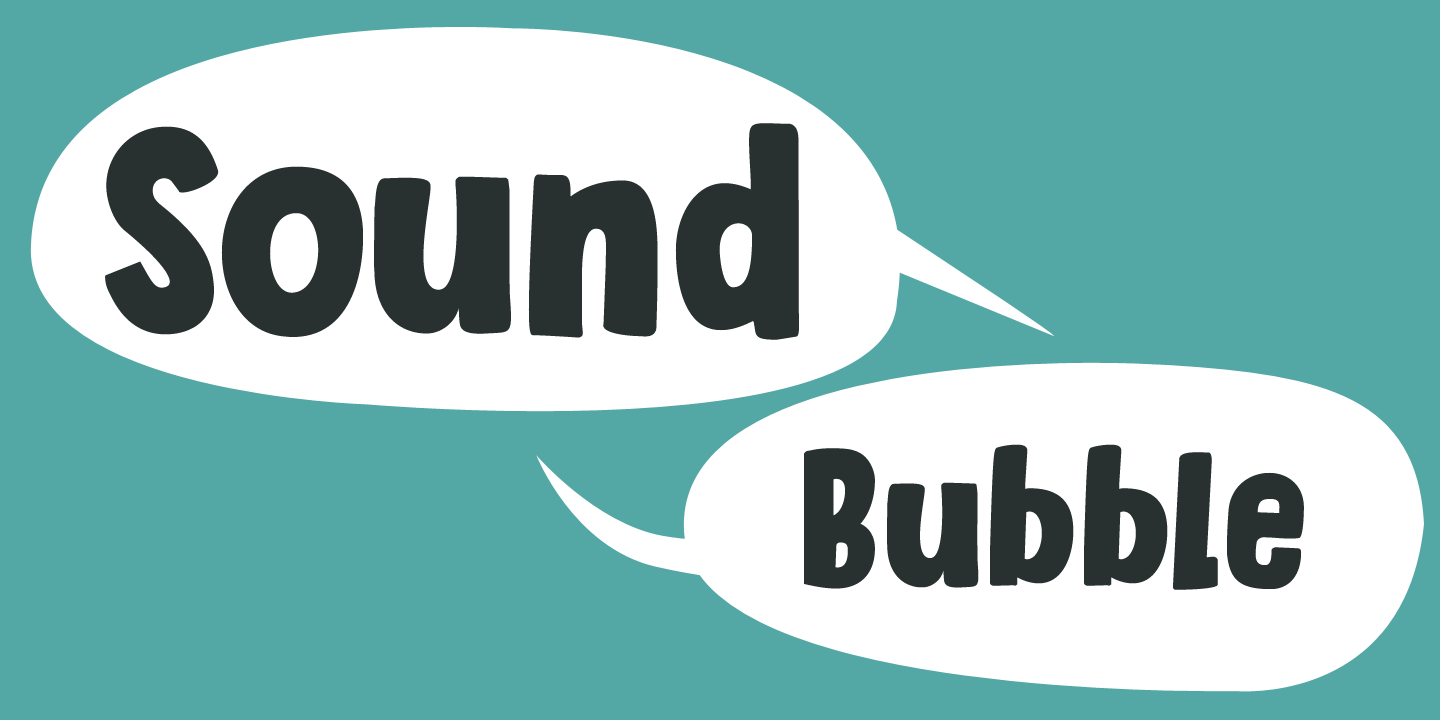
Sound Bubble Font is perfect for children's audio books, podcast branding, voice app interfaces, speech therapy materials, music streaming platforms, bubble bath product packaging, aquatic-themed designs, underwater adventure games, children's swim programs, comic book speech bubbles, and any project that requires playful audio character with bubbly personality.
What makes Sound Bubble Font exciting is its unique ability to visualize sound waves and audio experiences through rounded, bubble-like letterforms that capture the essence of floating sounds and aquatic acoustics. This delightful typeface features soft, curved characteristics with playful proportions that evoke the gentle movement of bubbles and the clarity of underwater communication. The font's bubbly character adds instant audio appeal and aquatic charm to any design, making it perfect for brands celebrating sound experiences and aquatic adventures.
Sound Bubble Font comes in multiple font families including Regular, Bold, Light, Floating, Condensed, and Aquatic variations, offering designers comprehensive options to create audio-visual compositions and achieve the perfect bubble aesthetic for sound-focused design projects.
Whether you're developing audio platform branding, creating children's educational materials, or designing aquatic entertainment campaigns, Sound Bubble Font Free Download provides the ideal solution for projects emphasizing audio experiences and playful bubble aesthetics. This charming typeface excels in display applications where bubbly presence is essential, ensuring your designs communicate sound clarity and aquatic playfulness. The rounded character and bubble styling of Sound Bubble Font make it an indispensable tool for designers who prioritize audio experiences, aquatic themes, and playful sound visualization in their typographic selections.